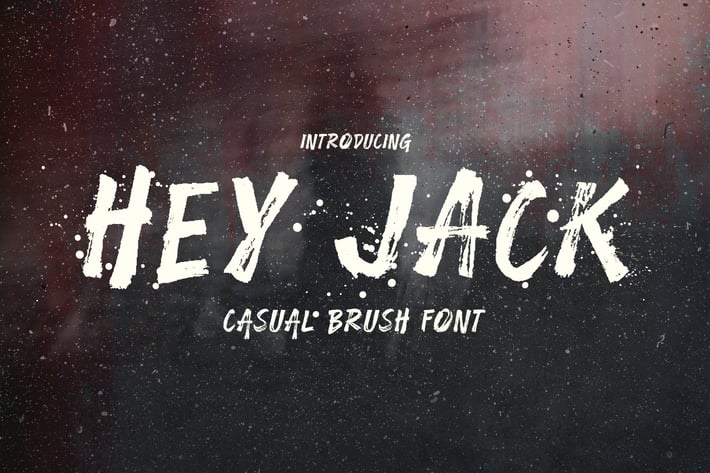
Hey Jack - Casual Brush Font
Hey Jack is a hand-drawn brush font with rough and casual letters. It’s great for logos, branding, print projects and any attention drawing headline.